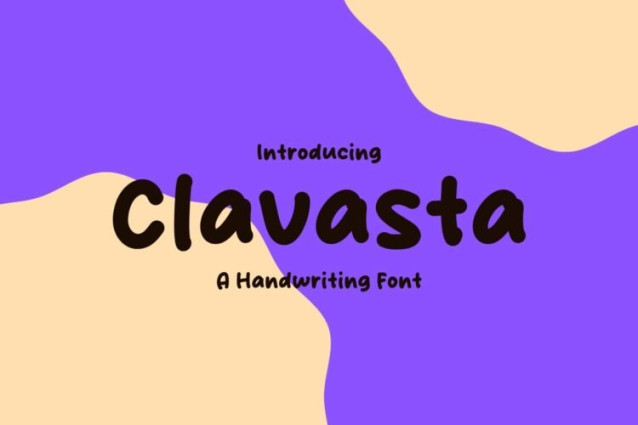
Clavasta Font
Clavasta Font is a simple and friendly handwritten font. Its natural and unique style makes it incredibly fitting to a large pool of designs. The only limit is your imagination!